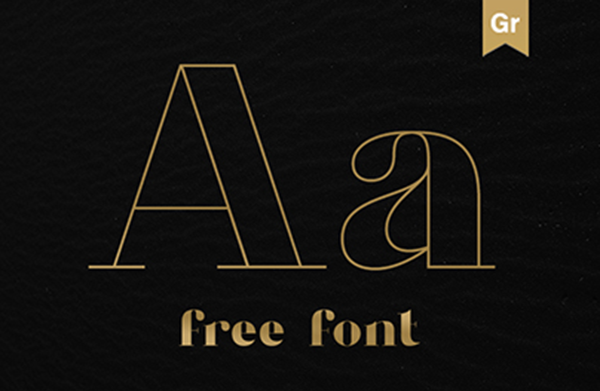
Chronos Serif Typeface
Welcome new day with a special typeface. Introducing Chronos Serif Typeface! Chronos Serif Font designed and shared by Mathieu Desjardins. Chronos Serif is an elegant display serif with 3 variants. Loaded with details and elaborate curves, it will surely uplift your high-end projects. Works perfectly for logos, magazines, menus, books, invitations, wedding / greeting cards, packaging, labels, t-shirt etc. All designs you will have a wonderful homemade touch with Chronos Serif.